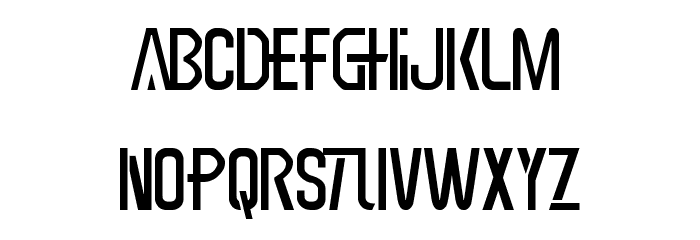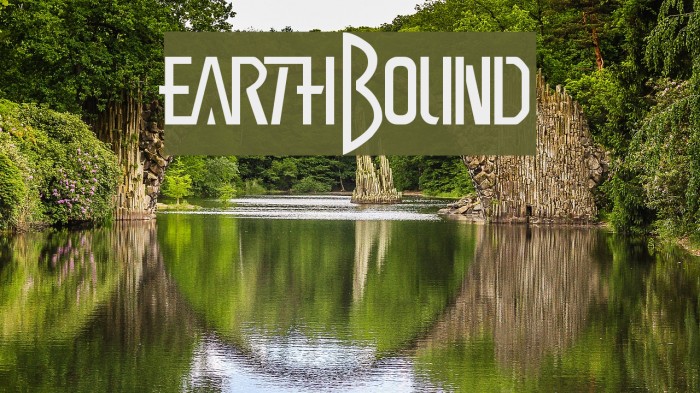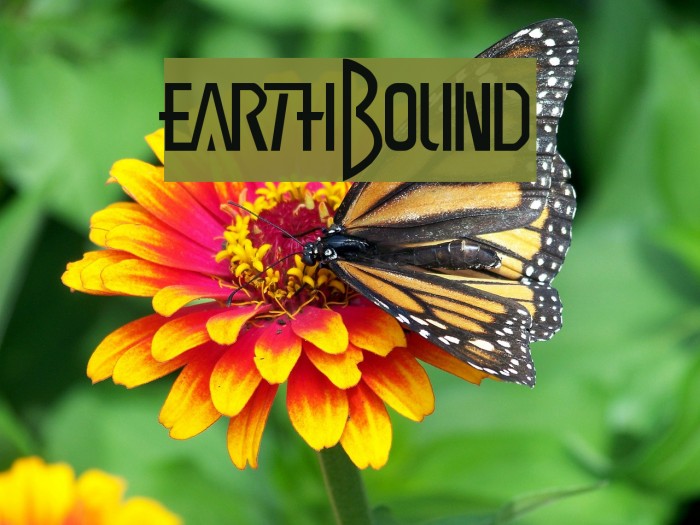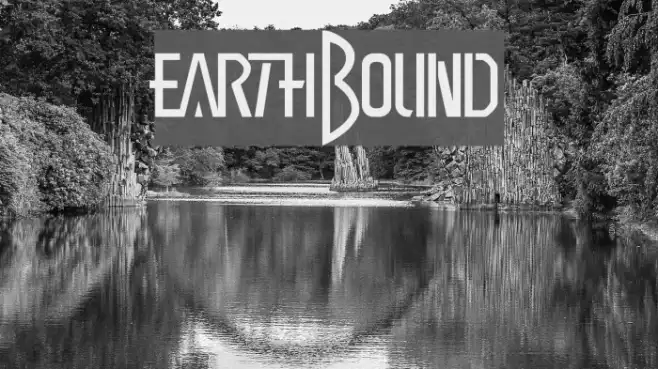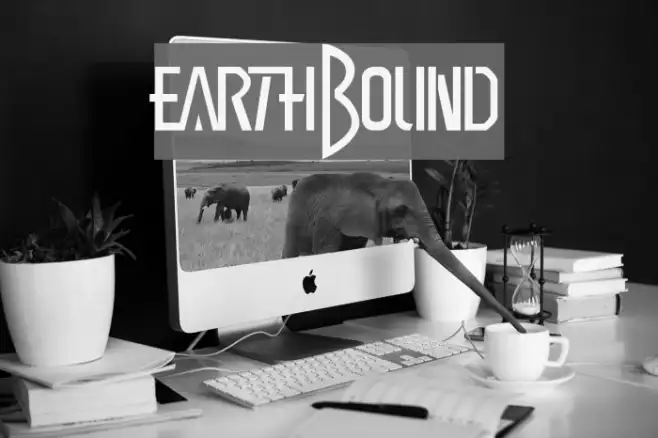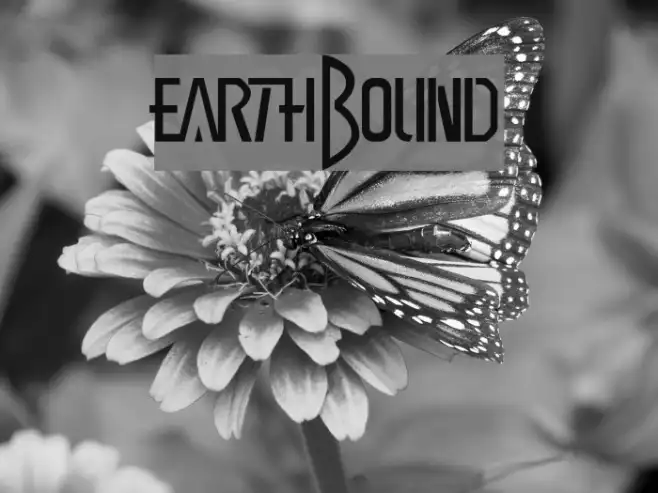
EarthBound Font
This font features a unique and bold design with a futuristic and geometric aesthetic. The uppercase letters are characterized by sharp angles and distinct shapes, giving them a dynamic and edgy appearance. The lowercase letters maintain a similar style, ensuring consistency throughout the typeface. The numbers are clear and legible, with a modern twist that complements the overall design. Special characters like the ampersand and exclamation mark are creatively styled, adding to the font's distinctive look. This typeface is perfect for projects that require a strong visual impact and a contemporary feel.
A bold, futuristic font with sharp angles and geometric shapes.